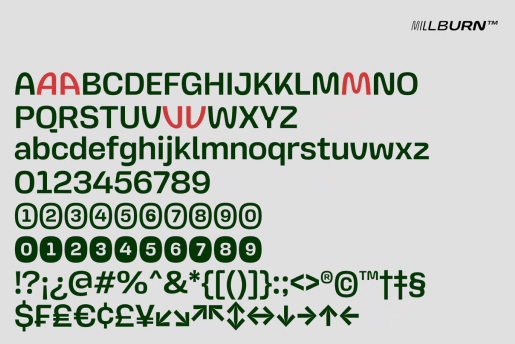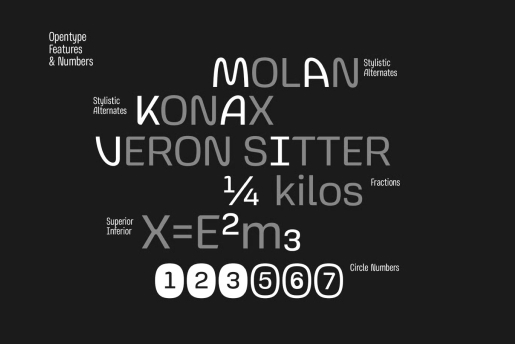
Millburn - Sport Racing Font
Millburn is a dynamic variable typeface inspired by motorsport precision and speed, featuring three adjustable axes: Weight, Width, and Slant. Its 15° slant adds motion and energy, ideal for sports branding, automotive design, and bold headlines. With 54 styles, over 90 language supports, and 493 glyphs, it offers exceptional versatility. Stylistic alternates for key uppercase letters add extra typographic flair, making Millburn perfect for both print and digital projects.